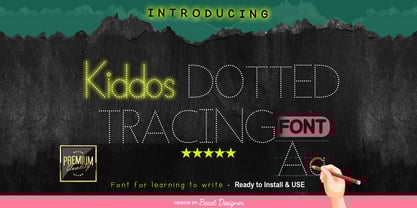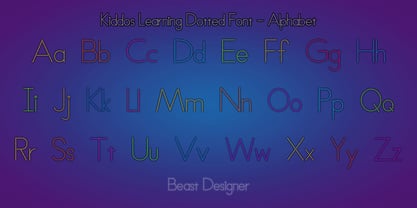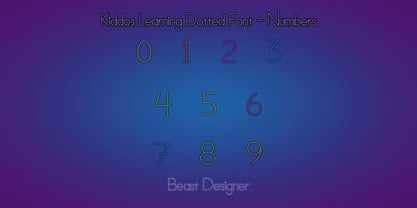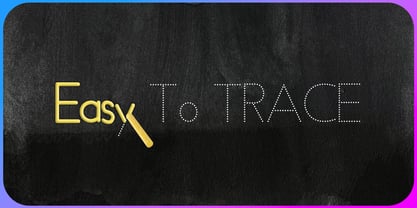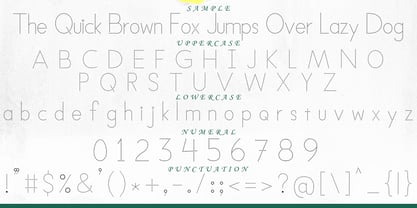
Kiddos Learning Dotted
by Beast Designer
The Kiddos Learning Dotted Font Family was designed by Mohammed Lamjidi and published by Beast Designer. Kiddos Learning Dotted contains 1 styles.
Kiddos Learning Dotted Font makes it easy to create fun and effective handwriting worksheets in any software. Designed for early learners, this dotted font is perfect for tracing letters, building handwriting skills, and boosting confidence.
Whether you’re teaching in the classroom, homeschooling, or creating handwriting workbooks, this font helps children learn to write in a clear, structured, and engaging way. It’s a simple, flexible tool for educators and parents alike.
Help kids learn to write with ease using Kiddos Learning Dotted Font — a fun and practical tool for early education!